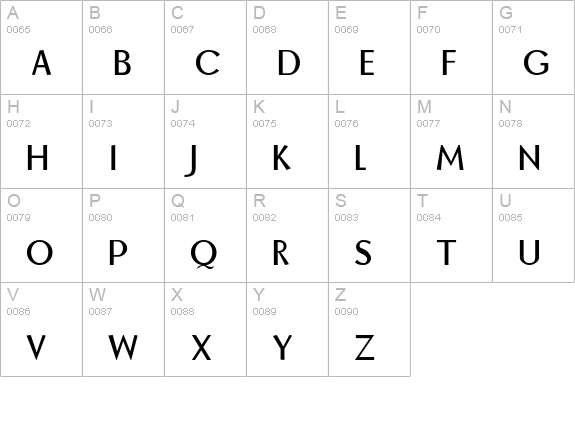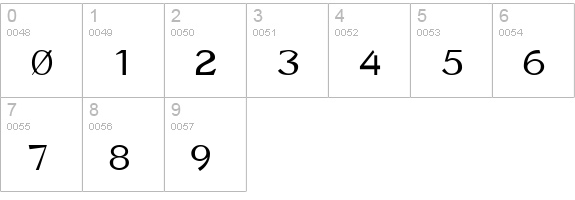
Introducing Borzoi font, a sleek and modern typeface that exudes elegance and sophistication. This versatile font is perfect for a wide range of design projects, from branding to editorial design. With its clean lines and stylish curves, Borzoi font adds a touch of class to any design. What sets Borzoi font apart is its unique combination of classic charm and contemporary flair. Whether you're creating a logo, a poster, or a website, this font will help you make a bold statement that captures attention. Best of all, Borzoi font is available for free download at FontsMarket.com. That's right, you can add this stunning font to your collection without spending a dime. Don't miss out on this opportunity to elevate your designs with Borzoi font. Download it now and let your creativity soar!